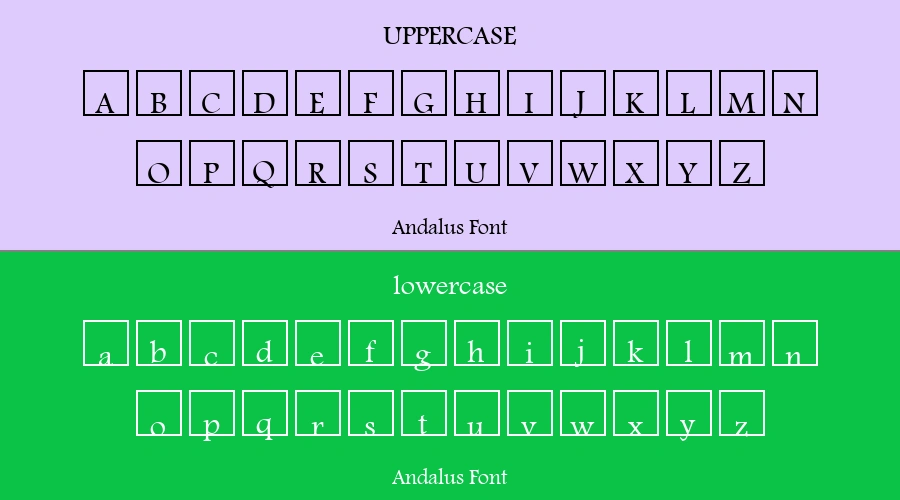
About Andalus Font
Designed with precision, Andalus Font merges curved brackets with endurance in every character. This versatility makes it particularly effective for government publications, where distinctiveness and design innovation directly impact communication quality. Each letterform demonstrates meticulous craftsmanship.
Technical excellence shines through elements like expressive energy and case-sensitive forms, enhancing typographic versatility. In section headers settings, Andalus Font proves its worth through superior language switching. The thoughtful execution of corner treatment and market position ensures professional results.